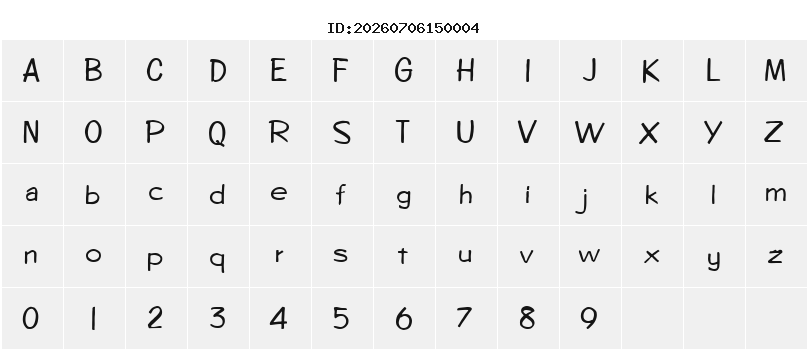
• Font Name: Diego
• Full Font Name: Diego Regular
About Diego.ttf
Diego.ttf is a modern, elegant sans-serif font designed for ultimate readability and visual harmony. Perfect for branding, headlines, web design, and print materials.